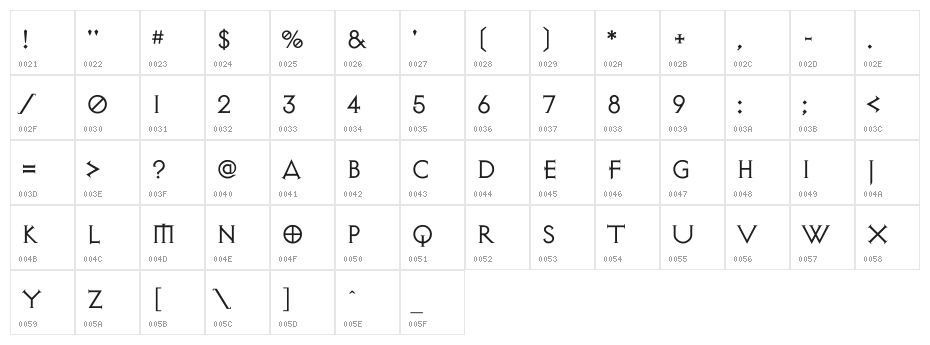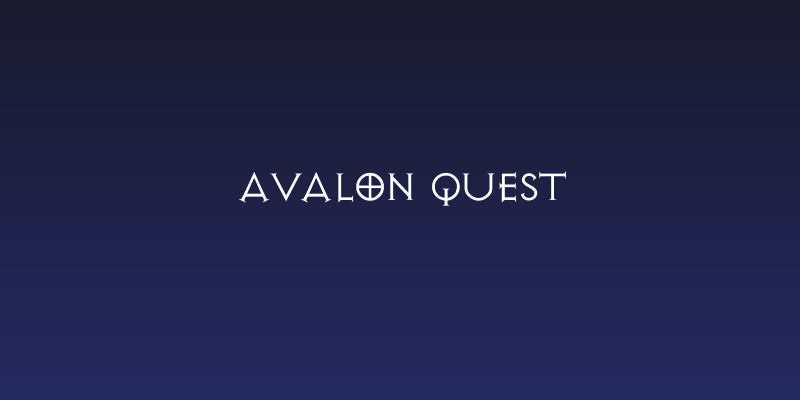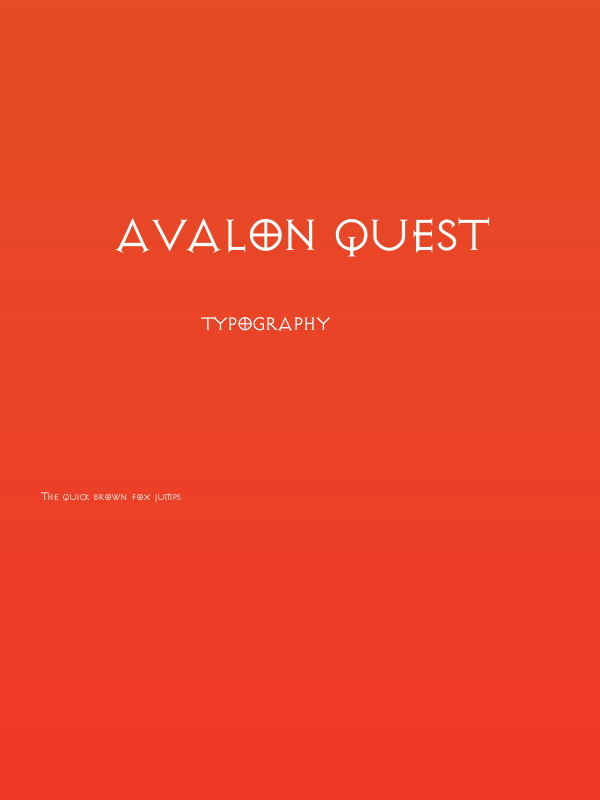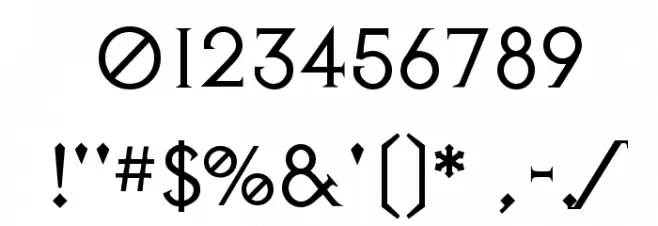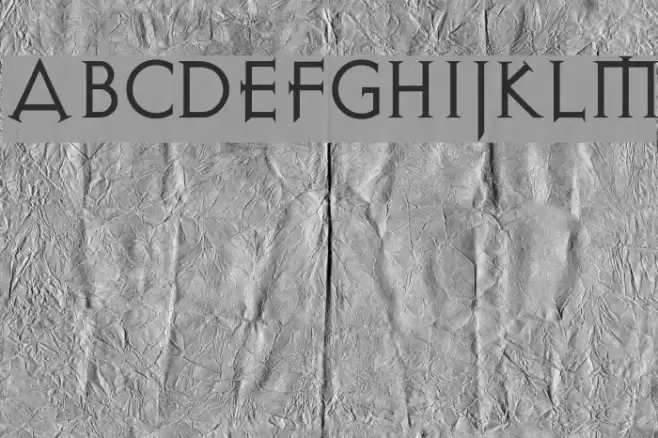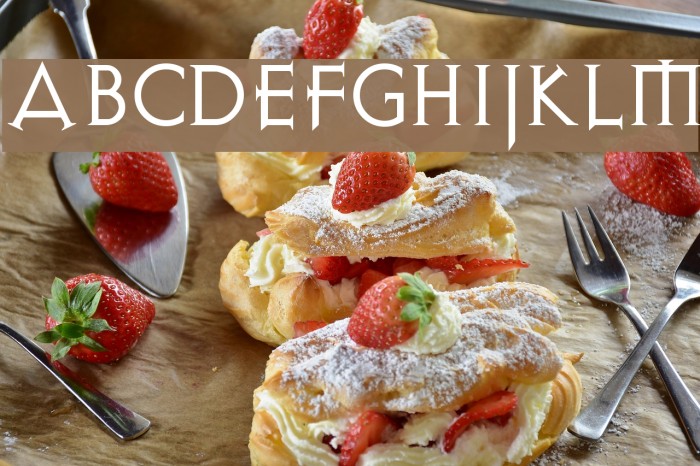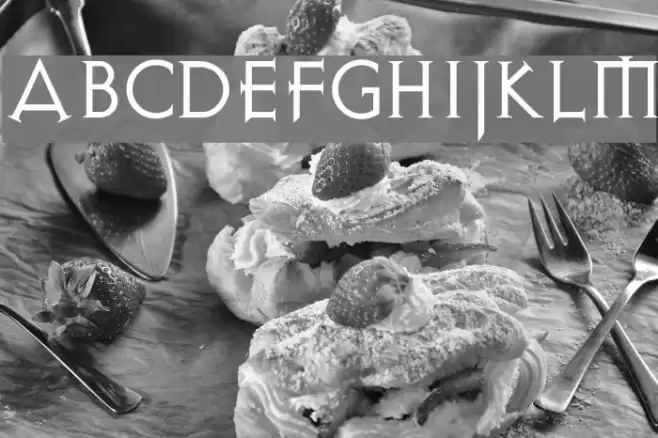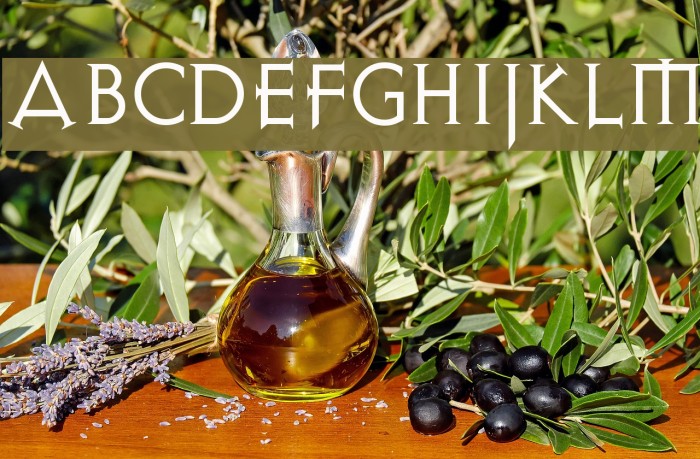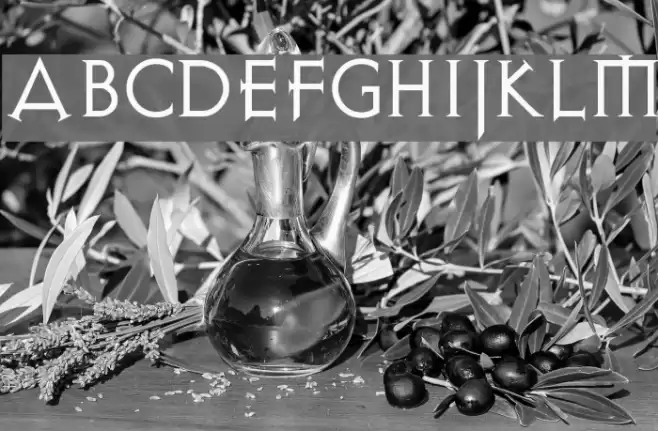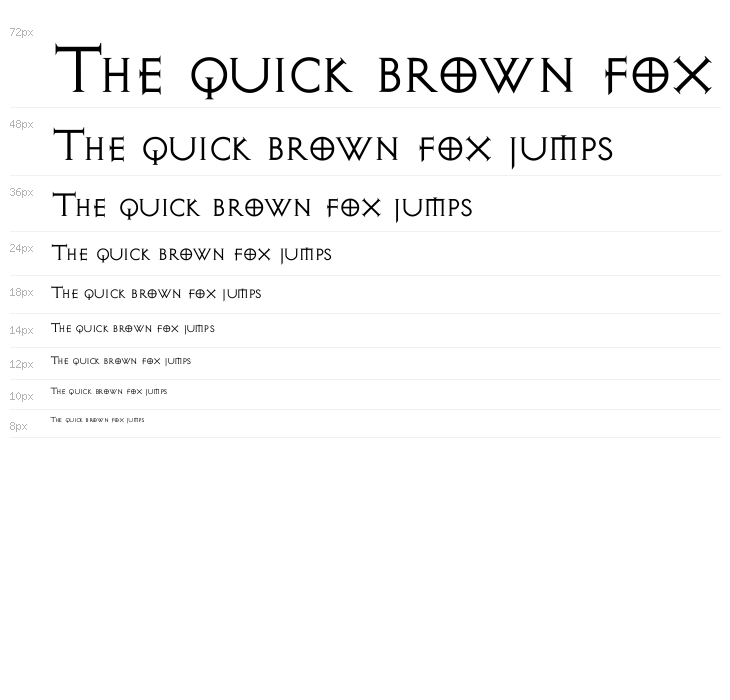
Avalon Quest Font
Avalon Quest Description
This font features a distinctive and bold design with sharp, angular serifs and unique character shapes. The uppercase letters are particularly striking, with some characters incorporating geometric elements, such as the circle in the letter 'O' and the crossbar in 'Ø'. The lowercase letters maintain a consistent style, echoing the angular and geometric elements of the uppercase set. Numbers are bold and clear, with a consistent weight that matches the letters. Special characters are designed with the same attention to detail, offering a cohesive look across all symbols. The overall appearance is both modern and slightly medieval, making it suitable for projects that require a touch of elegance and uniqueness.
| Overall Style | Modern, Medieval |
| Use Case | Headlines, Logos, Titles |
| Proposed Projects | Ideal for fantasy-themed projects, book covers, video game titles, and branding that requires a unique and elegant touch. |